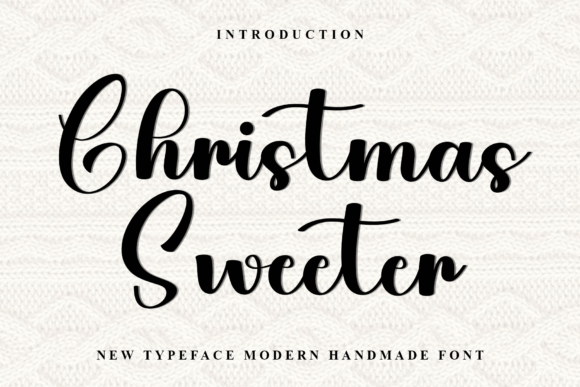
Introducing Christmas Sweeter Font: The Ultimate Festive Typeface for Your Holiday Designs
As the holiday season approaches, designers and crafters are on the lookout for the perfect typography to add a touch of magic to their creations. Look no further than the Christmas Sweeter Font, a festive and merry typeface that captures the essence of Christmas. With its decorative elements and whimsical flair, this font is sure to bring a cheerful and nostalgic ambiance to your words.
What Makes Christmas Sweeter Font So Special?
Christmas Sweeter Font is more than just a typeface – it’s an experience. Its unique design combines traditional holiday elements with a modern twist, making it perfect for a wide range of applications. Whether you’re creating greeting cards, gift tags, or holiday-themed projects, this font is sure to add a touch of enchantment to your designs.
One of the standout features of Christmas Sweeter Font is its decorative elements. The font includes a range of glyphs and ligatures that are specifically designed to add a festive touch to your typography. From snowflakes and holly leaves to Christmas trees and stockings, these decorative elements will help you create designs that are truly one-of-a-kind.
The Benefits of Using Christmas Sweeter Font
So why choose Christmas Sweeter Font for your holiday designs? Here are just a few benefits of using this amazing typeface:
- Festive and fun: Christmas Sweeter Font is the perfect way to add a touch of holiday cheer to your designs. Its whimsical flair and decorative elements make it a standout typeface that’s sure to put a smile on people’s faces.
- Versatile: Whether you’re creating greeting cards, gift tags, or holiday-themed projects, Christmas Sweeter Font is the perfect choice. Its unique design makes it suitable for a wide range of applications, from formal to informal.
- Nostalgic ambiance: Christmas Sweeter Font has a nostalgic quality that’s hard to find in modern typography. Its traditional holiday elements will transport you back to a simpler time, making it the perfect choice for designers who want to create designs that feel truly special.
How to Use Christmas Sweeter Font in Your Designs
Using Christmas Sweeter Font in your designs is easy. Here are a few tips to get you started:
- Pair it with complementary fonts: Christmas Sweeter Font is a decorative typeface, so it’s best to pair it with simpler fonts that complement its design. Try pairing it with a clean sans-serif font for a striking contrast.
- Experiment with glyphs and ligatures: One of the best things about Christmas Sweeter Font is its range of glyphs and ligatures. Experiment with different combinations to create unique and eye-catching designs.
- Use it for headlines and titles: Christmas Sweeter Font is perfect for headlines and titles, where its decorative elements can really shine. Try using it to create attention-grabbing headlines that set the tone for your design.
- Add a personal touch: Christmas Sweeter Font is perfect for creating personalized designs. Try using it to create custom greeting cards or gift tags that make your recipients feel special.
Why Christmas Sweeter Font is Perfect for Holiday-Themed Projects
Christmas Sweeter Font is the perfect choice for holiday-themed projects, from greeting cards to gift tags and more. Here are just a few reasons why:
- Captures the spirit of the season: Christmas Sweeter Font captures the essence of the holiday season, with its festive design and whimsical flair.
- Adds a touch of magic: This font adds a touch of magic to your designs, making them feel truly special and enchanting.
- Perfect for a wide range of applications: Whether you’re creating formal or informal designs, Christmas Sweeter Font is the perfect choice. Its unique design makes it suitable for a wide range of applications.
Christmas Sweeter Font is the ultimate festive typeface for your holiday designs. With its decorative elements, whimsical flair, and nostalgic ambiance, it’s the perfect choice for designers who want to create truly special designs. Whether you’re creating greeting cards, gift tags, or holiday-themed projects, this font is sure to bring a touch of enchantment to your words. So why wait? Download Christmas Sweeter Font today and let your typography shine with the magic of the holiday season!